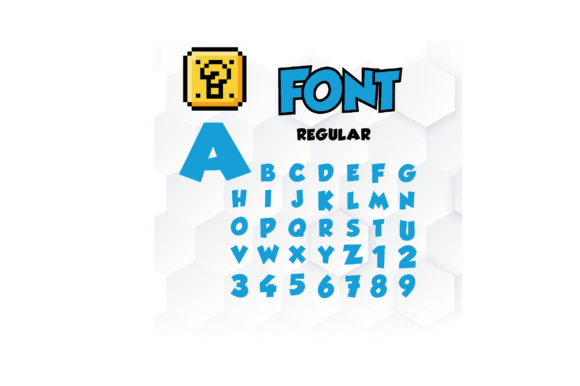
Comic Style Font: Add a Fun and Cool Touch to Your Projects
Are you looking for a font that can add a fun and cool touch to your projects? Look no further than the Comic Style font. This display font is perfect for anyone who wants to make a statement with their text. In this article, we’ll take a closer look at the Comic Style font, its features, and how you can use it to take your projects to the next level.
What is Comic Style Font?
Comic Style font is a type of display font that is designed to resemble the style of comic books. It is a fun and playful font that is perfect for headlines, titles, and other display text. The font is characterized by its bold lines, bright colors, and exaggerated letterforms.
Features of Comic Style Font
Comic Style font has several features that make it a great choice for your projects. Some of its key features include:
- Bold and Playful Design: The font has a bold and playful design that is sure to grab attention.
- Easy to Read: Despite its bold design, the font is easy to read, even at smaller sizes.
- Highly Versatile: Comic Style font can be used for a wide range of projects, from posters and flyers to digital graphics and websites.
- Customizable: The font is highly customizable, allowing you to adjust the color, size, and style to suit your needs.
How to Use Comic Style Font
Using Comic Style font is easy. Here are a few tips to get you started:
- Choose the Right Size: Comic Style font is designed to be used at larger sizes, so choose a size that is big enough to make an impact.
- Select a Bold Color: The font looks best in bold, bright colors, so choose a color that stands out.
- Use it for Headlines and Titles: Comic Style font is perfect for headlines and titles, so use it to add a fun and cool touch to your text.
- Experiment with Different Styles: Don’t be afraid to experiment with different styles and variations of the font to find the one that works best for your project.
Benefits of Using Comic Style Font
There are several benefits to using Comic Style font in your projects. Some of the key benefits include:
- Adds a Fun and Cool Touch: The font adds a fun and cool touch to your text, making it perfect for projects that need to stand out.
- Increases Readability: The font’s bold design and clear letterforms make it easy to read, even at smaller sizes.
- Highly Versatile: Comic Style font can be used for a wide range of projects, from posters and flyers to digital graphics and websites.
- Customizable: The font is highly customizable, allowing you to adjust the color, size, and style to suit your needs.
Best Practices for Using Comic Style Font
Here are a few best practices to keep in mind when using Comic Style font:
- Use it Sparingly: While Comic Style font is fun and cool, it can be overwhelming if used too much. Use it sparingly to add emphasis to your text.
- Pair it with Other Fonts: Comic Style font looks great when paired with other fonts, so experiment with different combinations to find the one that works best for your project.
- Adjust the Size and Color: Adjust the size and color of the font to suit your needs and make it stand out.
- Test it Out: Test out the font on different devices and platforms to ensure it looks great everywhere.
Comic Style font is a fun and cool display font that can add a lot of personality to your projects. With its bold design, easy readability, and high versatility, it’s perfect for anyone who wants to make a statement with their text. By following the tips and best practices outlined in this article, you can use Comic Style font to take your projects to the next level and achieve the results you want.